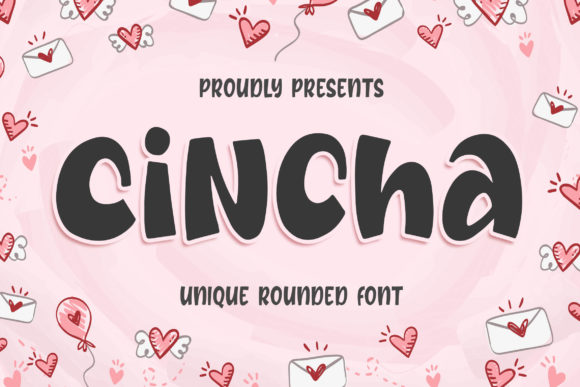
Meet Cincha Font: A Portal to Enchanting Designs
In the realm of digital artistry, where expression takes myriad forms, Cincha Font emerges as a visionary force, a font family that ignites creativity and empowers designers to weave captivating tales through visual masterpieces.
Crafted with meticulous attention to detail by the visionary minds at Blankids Studio, Cincha Font is a display typeface that transcends the ordinary, beckoning you into a world of endless possibilities. Its playful and inviting nature makes it the perfect companion for those seeking fonts for Instagram, where visual storytelling reigns supreme.
But Cincha Font's versatility extends far beyond the confines of social media. Its whimsical charm lends itself effortlessly to a kaleidoscope of creative endeavors, from heartfelt calligraphy scripts to enchanting DIY projects. With Cincha Font as your creative ally, every idea, no matter how grand or humble, transforms into a tangible piece of art, ready to captivate and inspire.
With Cincha Font, you possess the power to:
- Unleash your creativity and forge a unique visual identity for your brand.
- Engage your audience with captivating graphics that resonate and leave a lasting impression.
- Craft heartfelt invitations, greeting cards, and other personalized keepsakes that evoke genuine emotions.
- Embark on DIY projects with renewed vigor, knowing that Cincha Font will elevate your creations to new heights of artistry.
Cincha Font is more than just a font; it's a gateway to a world where imagination reigns free, where every stroke of your creative genius leaves an indelible mark. Embrace its magic today and unlock the true potential of your artistic vision.